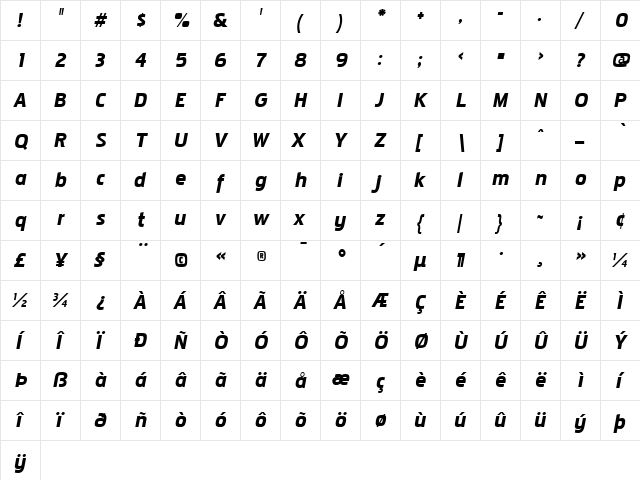
Pakenham Xp Blk Italic
Design Context for Pakenham Xp Blk Typeface
Pakenham Xp Blk is a composed and adaptable typeface that performs quietly and consistently across a wide range of design contexts. The dynamic lean of this cut emphasises speed and emphasis in any layout.
Pro Tip: Use Pakenham Xp Blk for emphasis, pull quotes, and subheadings where its slanted energy can add rhythm to the layout.